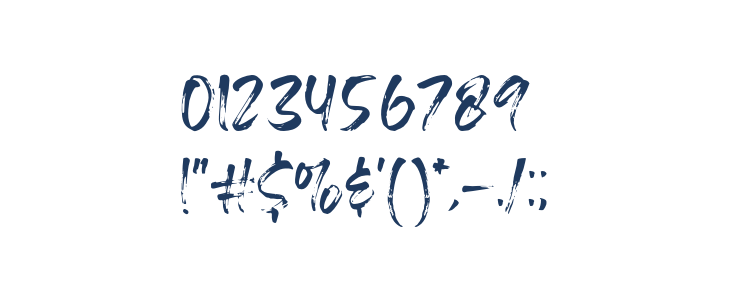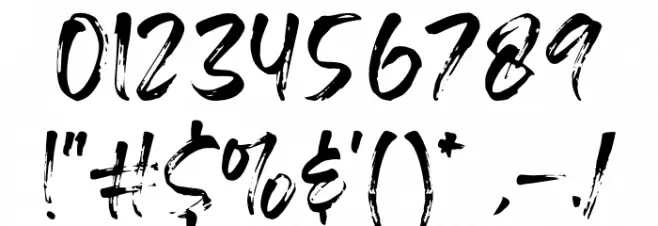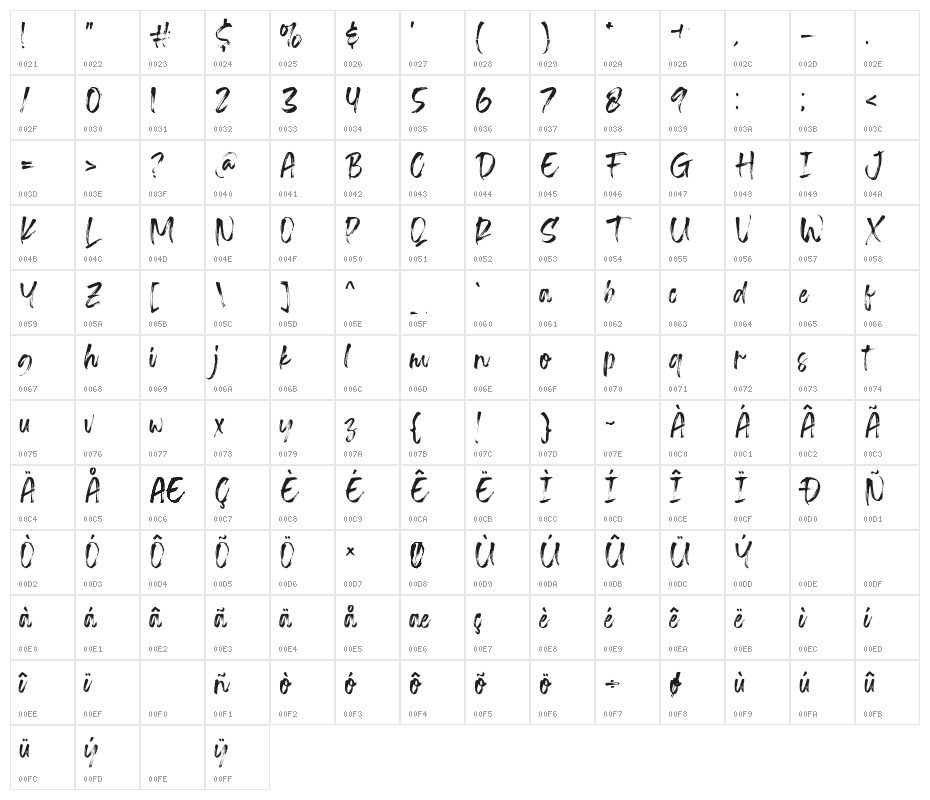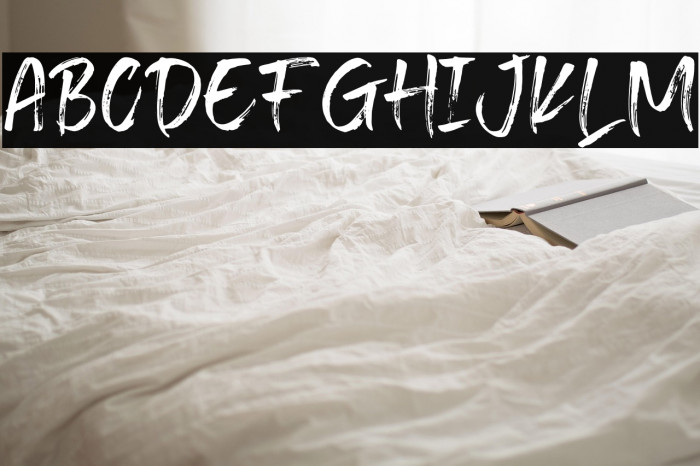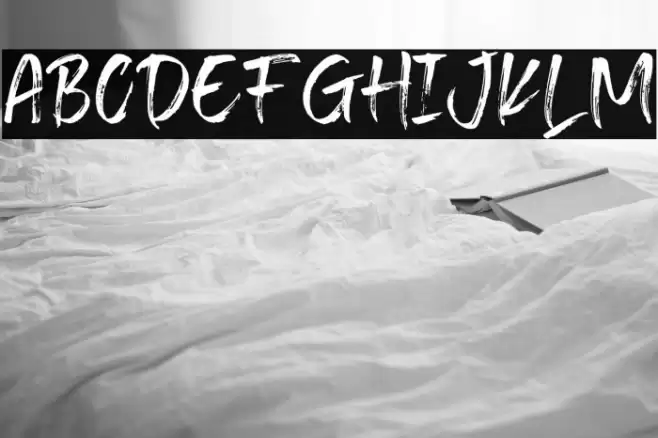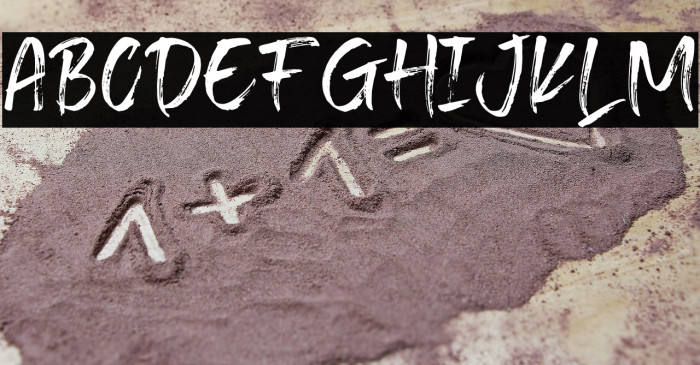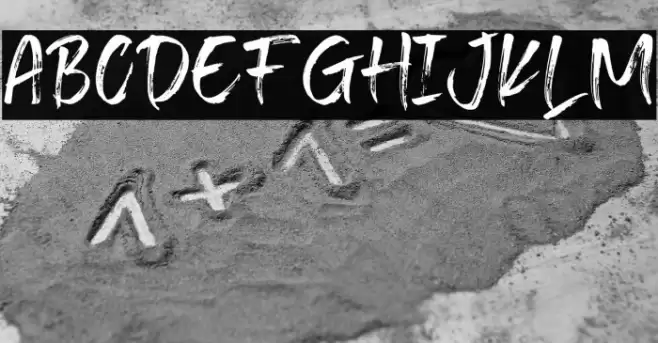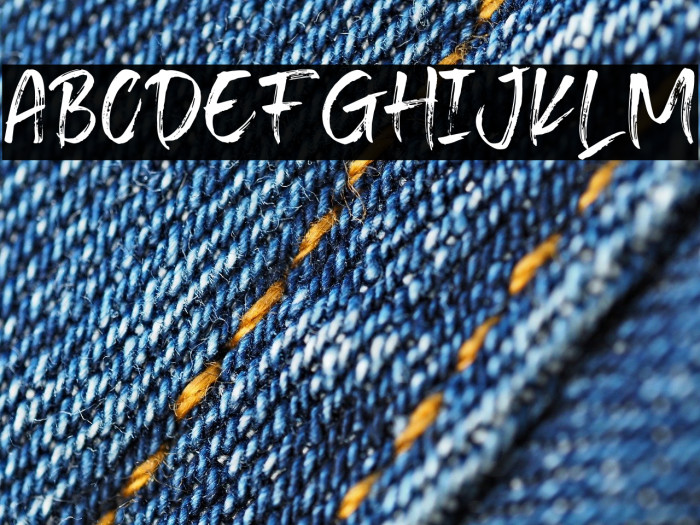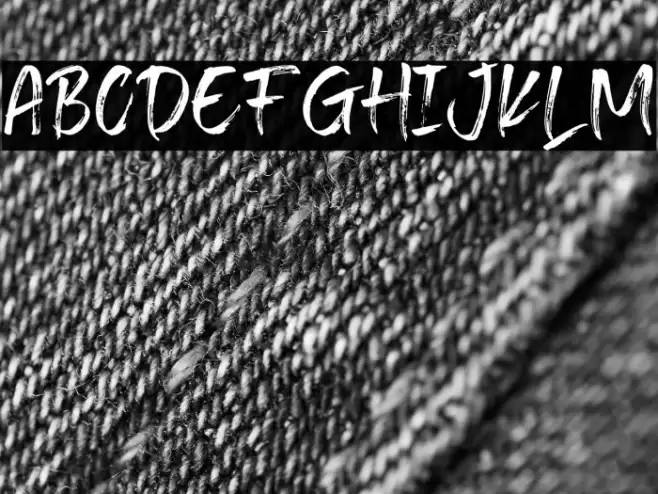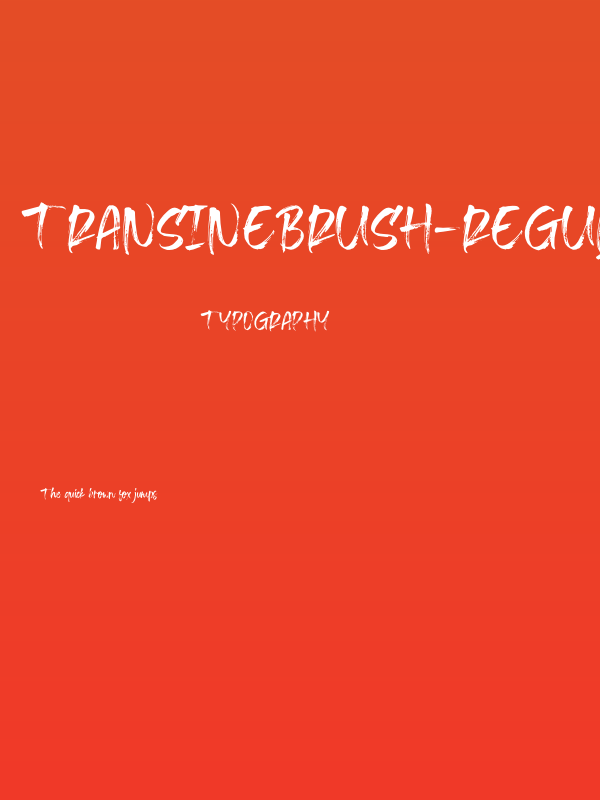
TransineBrush-Regular Font
TransineBrush-Regular Description
This expressive font features a dynamic brush style with bold, sweeping strokes that convey a sense of energy and movement. The characters are crafted with a hand-painted appearance, showcasing irregular edges and varying thicknesses that add to its artistic flair. The uppercase and lowercase letters maintain a consistent style, while the numerals and special characters integrate seamlessly, enhancing its versatility. This font's organic and fluid design makes it ideal for creative projects that require a personal touch.
| Proposed Projects | Ideal for branding, posters, invitations, and any project that benefits from a personal, artistic touch. |